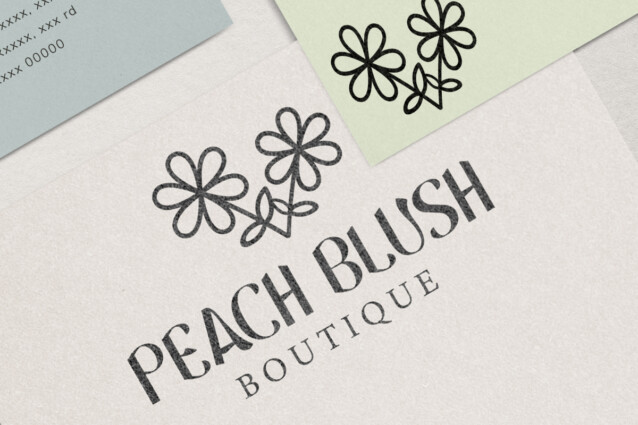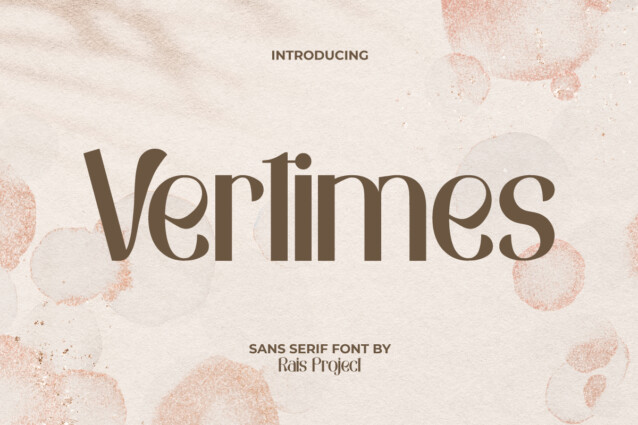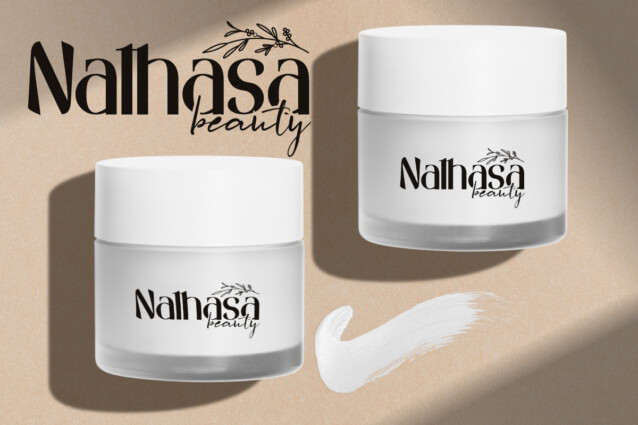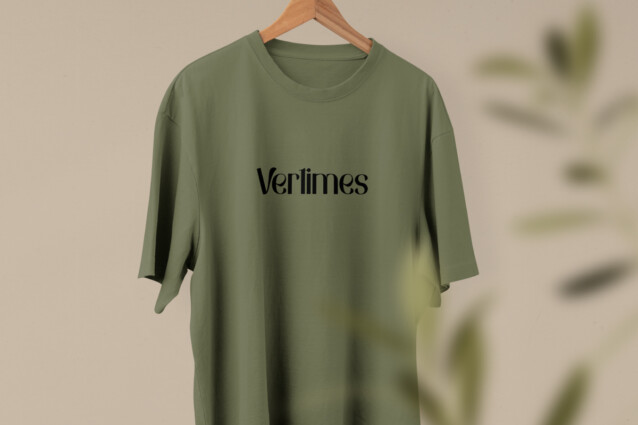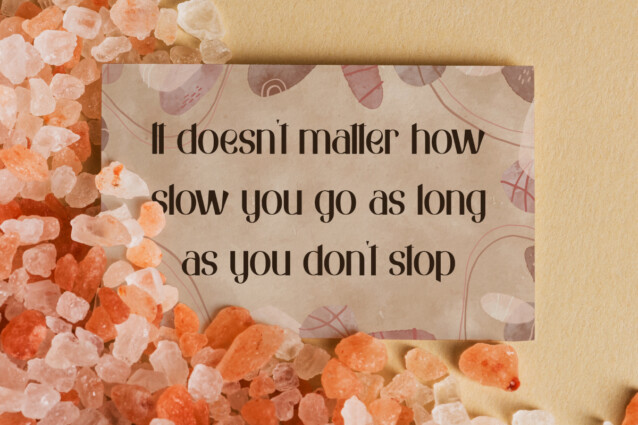
Vertimes Font
Vertimes Font is a sophisticated stylish sans serif display font. This font exudes a feminine aura with short and thick lines that are neatly drawn and attractive. It will work good in many designs, such as cover, brand image, custom design, gift box, greeting card, invitation, label, menu, poster, product packaging, quote, signage, web, and more!